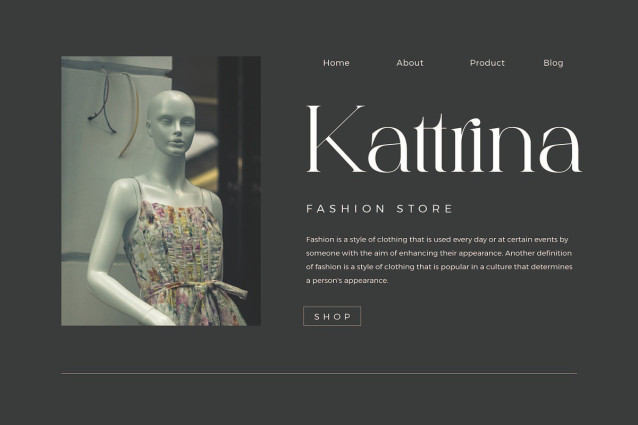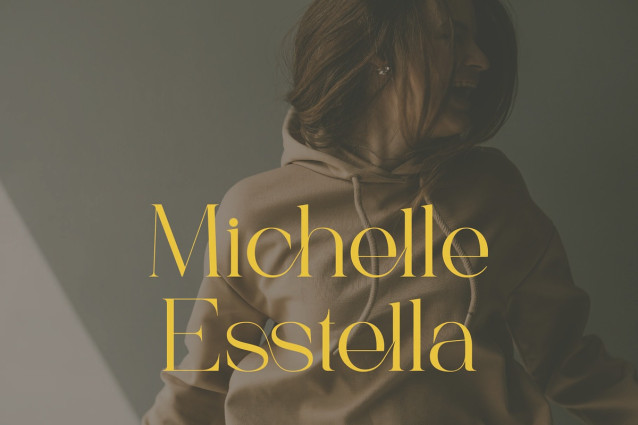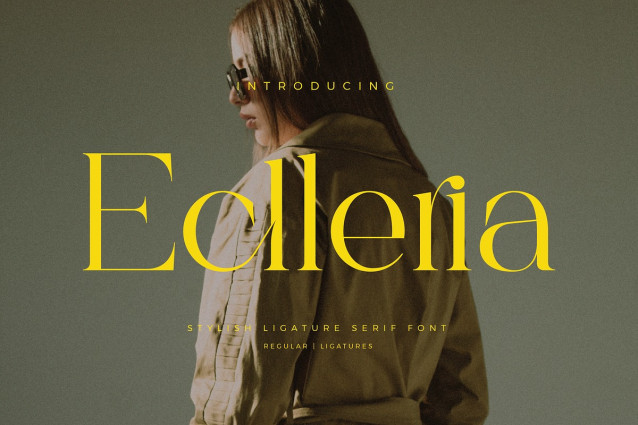
Eclleria Font
Eclleria Font inspired by the famous minimalist logo perfect for the purposes of designing templates, brochures, videos, advertising branding, logos and more.